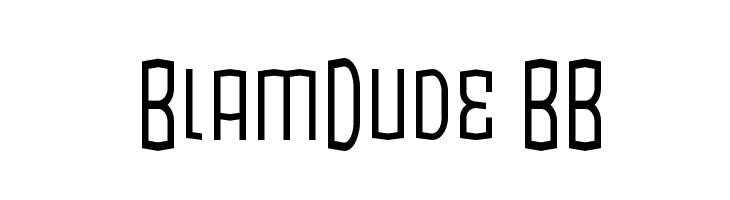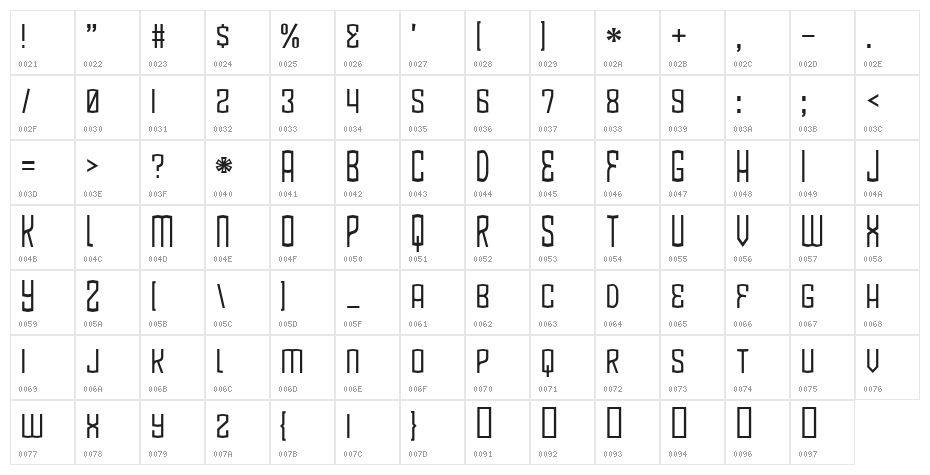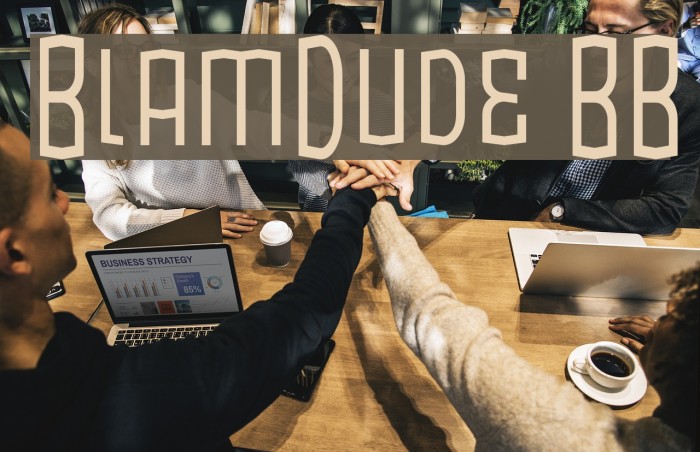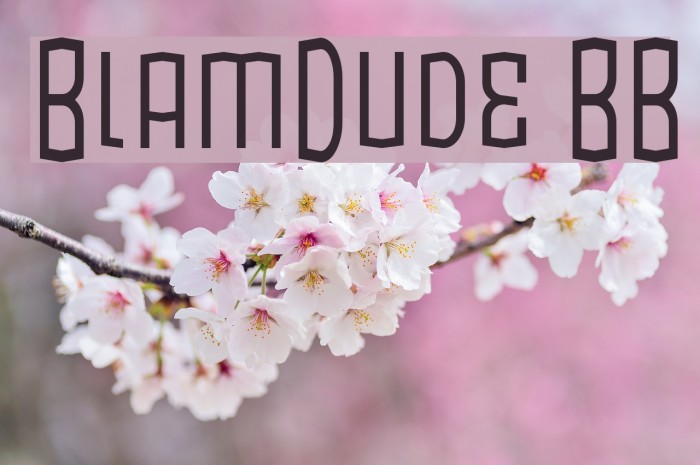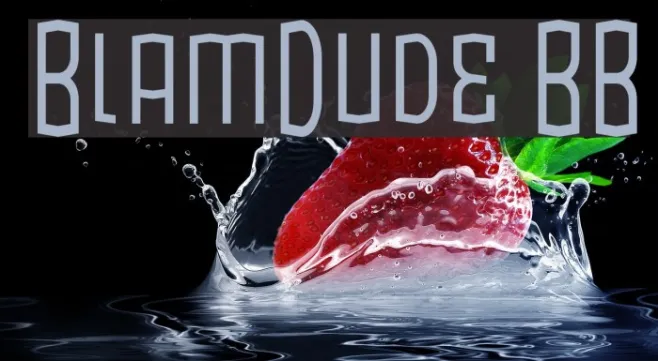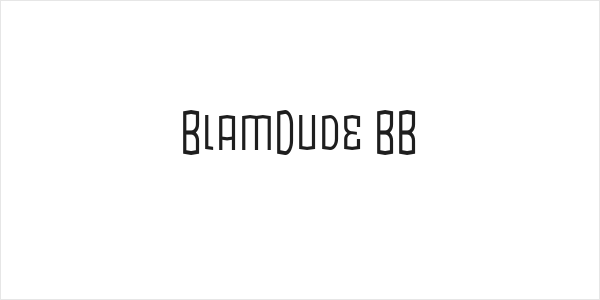
BlamDude BB Font
BlamDude BB Description
This font features a bold and geometric design with a modern twist. The characters are constructed with straight lines and sharp angles, giving it a futuristic and tech-inspired appearance. The uppercase letters are tall and narrow, while the lowercase letters maintain a consistent height, creating a uniform look. The numbers and special characters follow the same design principles, ensuring a cohesive style throughout. The font's unique structure makes it stand out, with a distinct personality that is both edgy and sophisticated.
| Proposed Projects | Ideal for tech branding, futuristic posters, video game titles, and digital media. |